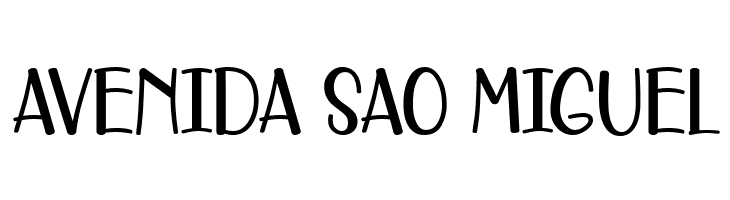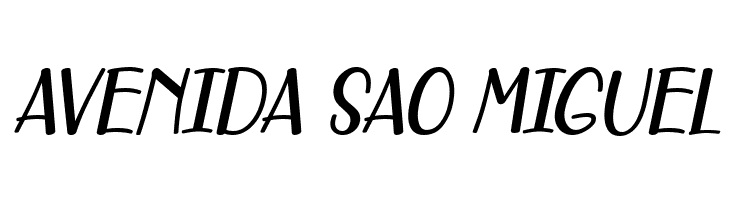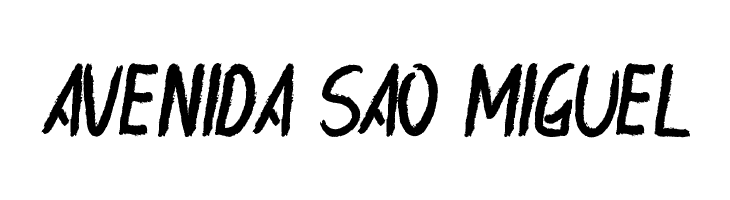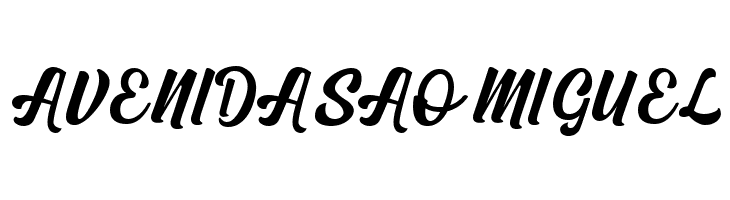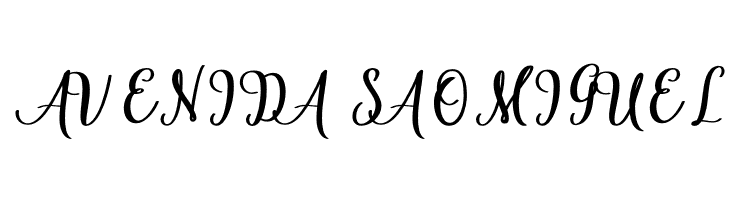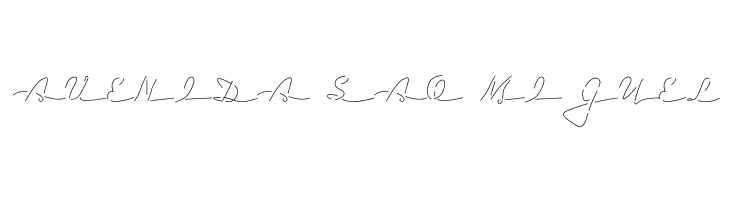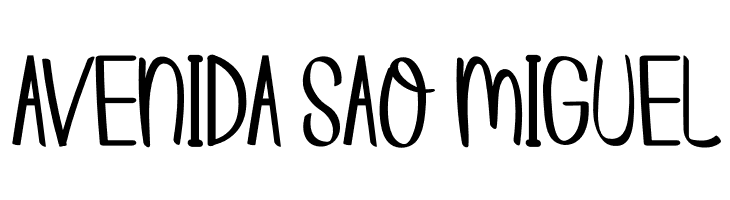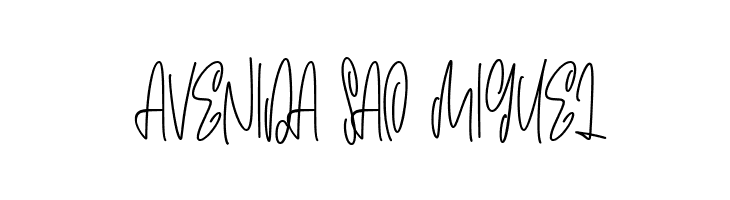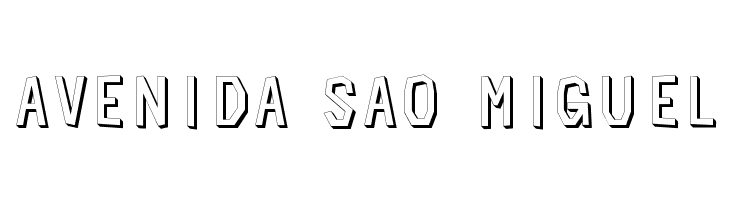
• Cardboard Cutout Color
A bold, playful font with a 3D cut-out effect and angular edges.
• Cardenio Modern Bold
A bold, playful font with a hand-drawn, casual style.
• Cardenio Modern Regular
A modern handwritten font with a playful and casual style.
• Cardhonie
A playful, handwritten font with smooth, flowing lines and a casual style.
• Cardias
A cursive, handwritten font with elegant, flowing characters.
• CardiganTitlingRg-Bold
A bold, modern sans-serif font with a clean and impactful style.
• CardiganTitlingRg-Bold
A bold, modern font with clean lines and strong presence.
• CardiganTitlingRg-BoldItalic
A bold, italic font with a dynamic and assertive style.
• CardiganTitlingRg-BoldItalic
A bold, italic font with a modern and dynamic style.
• CardiganTitlingRg-Italic
A modern, italic sans-serif font with a sleek and professional appearance.
• CardiganTitlingRg-Italic
A modern, italic font with clean lines and a dynamic slant.
• CardiganTitlingRg-Regular
A modern, clean sans-serif font with uniform strokes and a slightly condensed width.
• CardiganTitlingRg-Regular
A modern sans-serif font with clean lines and excellent readability.
• CardiganTitlingSb-Italic
A sleek, modern italic font with smooth curves and dynamic slant.
• CardiganTitlingSb-Italic
A modern, italic font with clean lines and a dynamic slant.
• CardiganTitlingSb-Regular